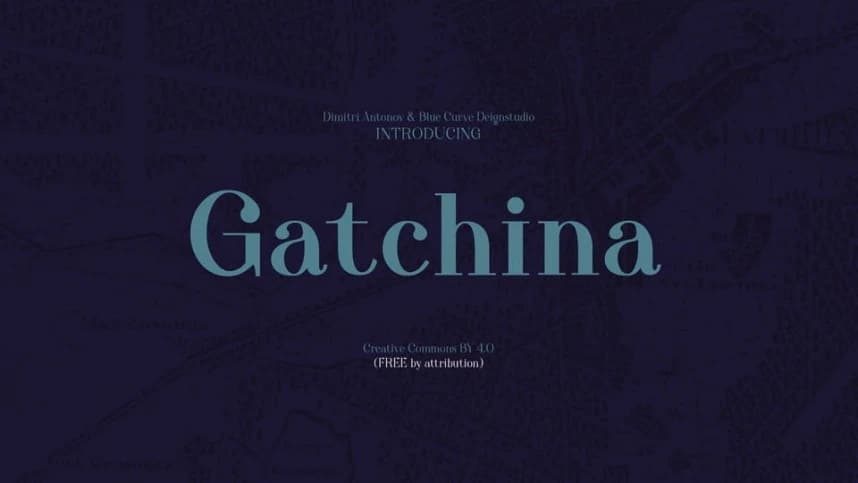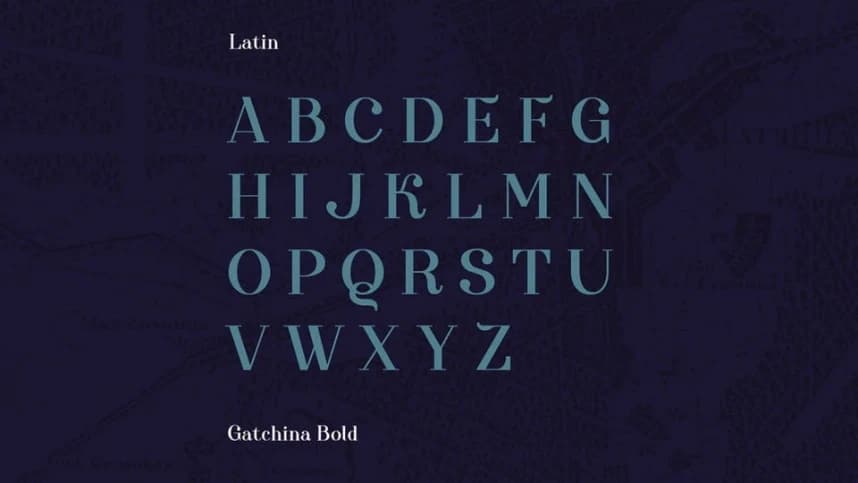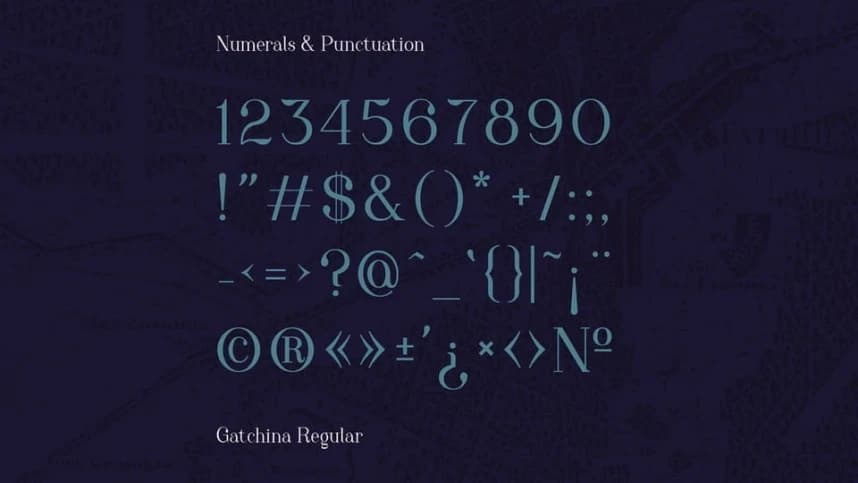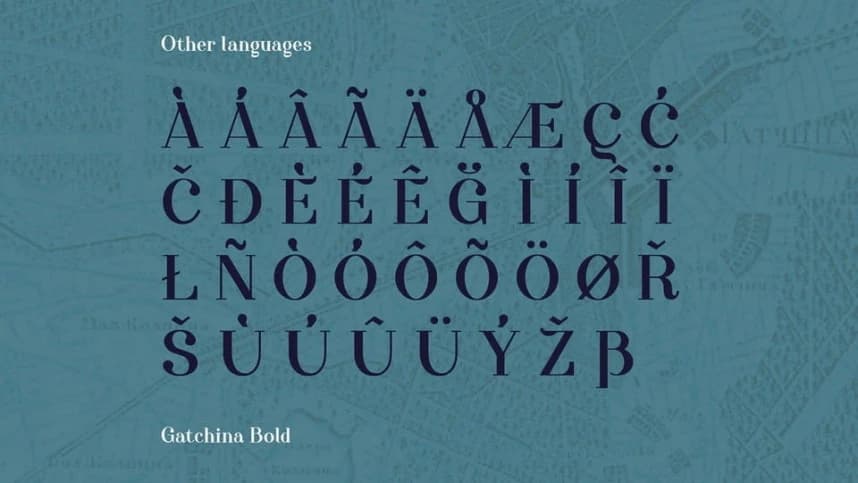
Gatchina Font
Gatchina Font is a refined serif typeface with a quiet sense of sophistication and grace. Its elegant proportions and delicate con-trasts give it the feeling of a classic novel title or the inscription on an old palace doorway.